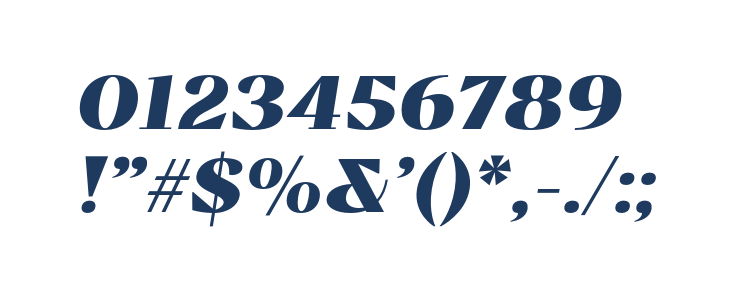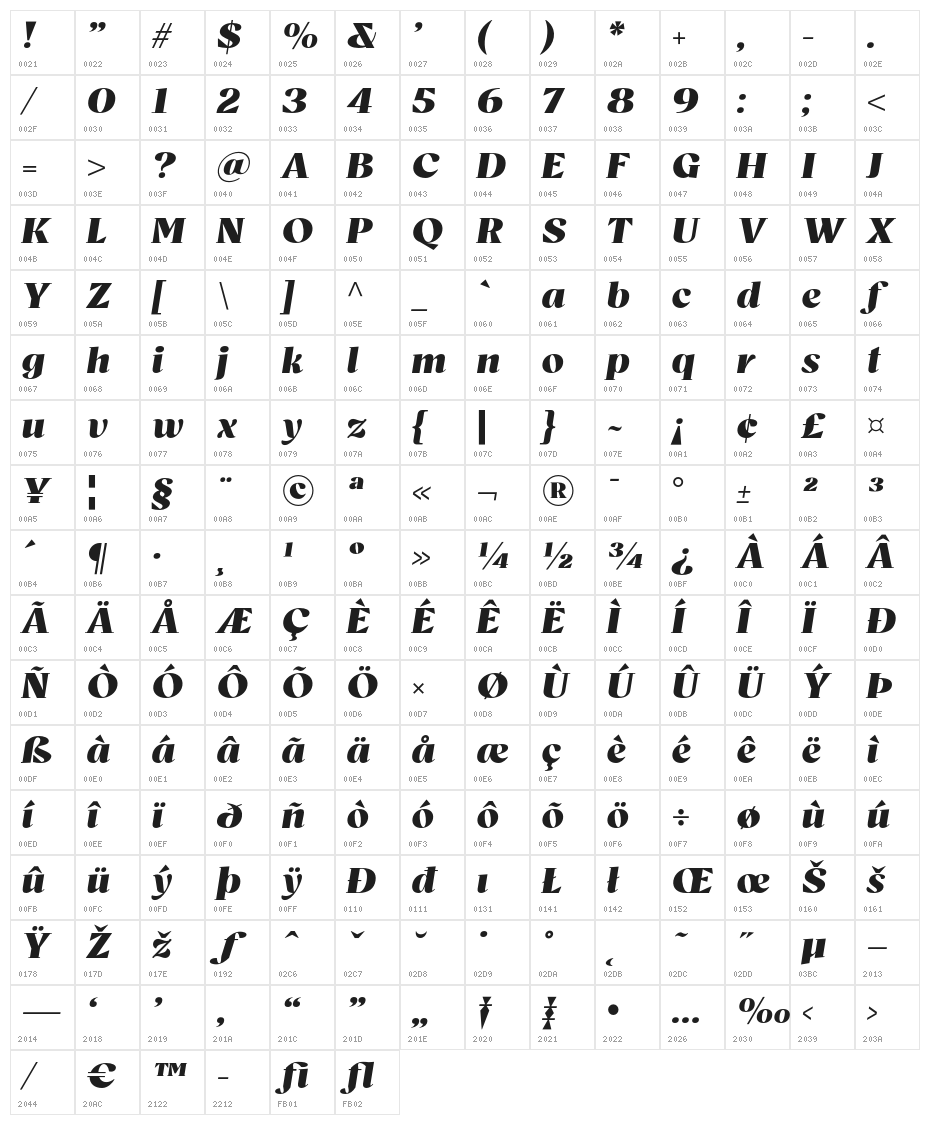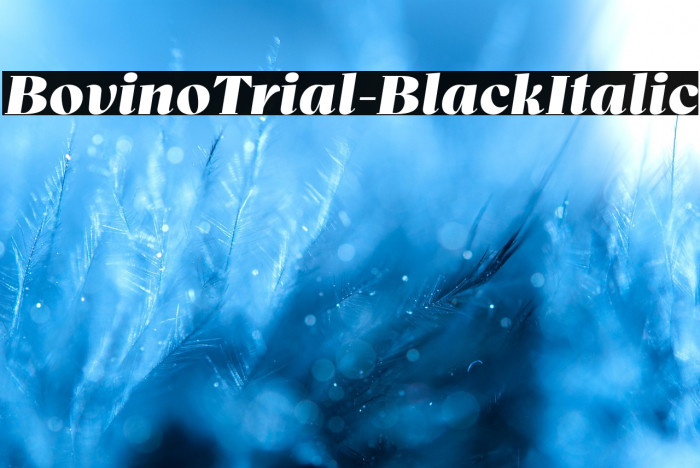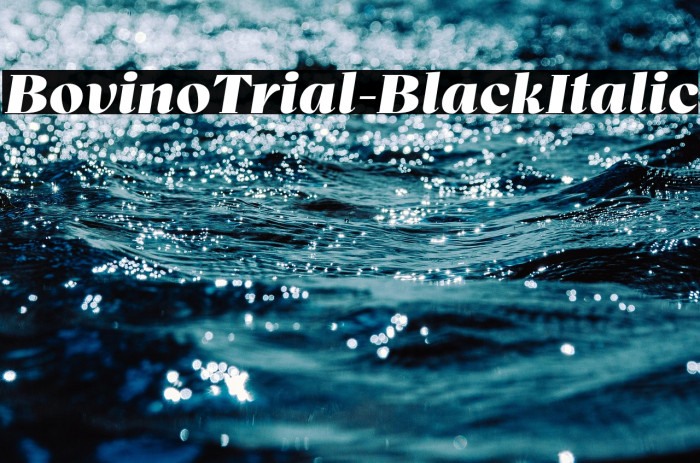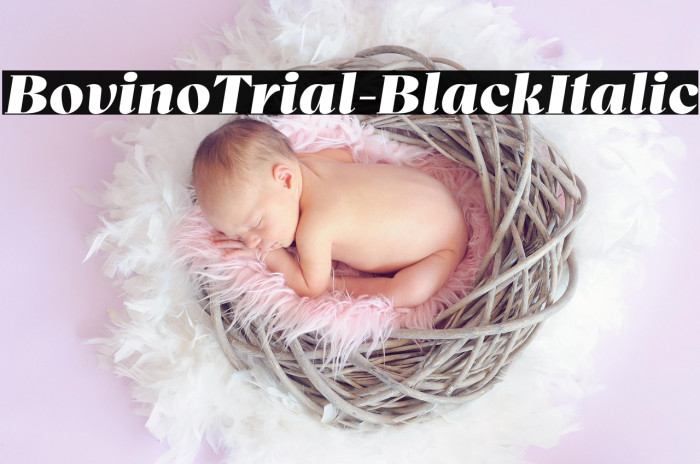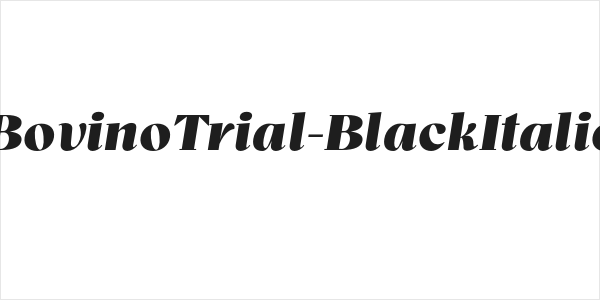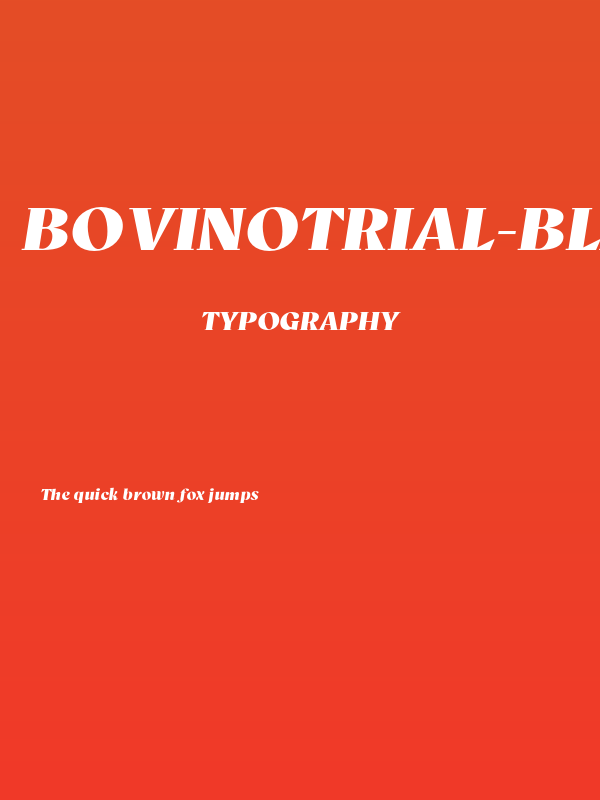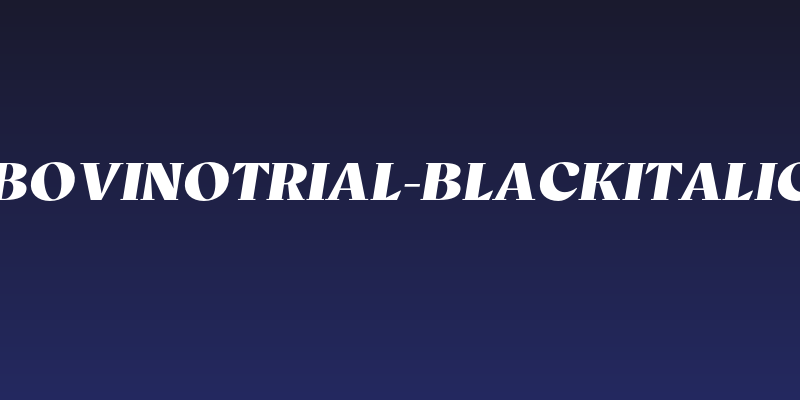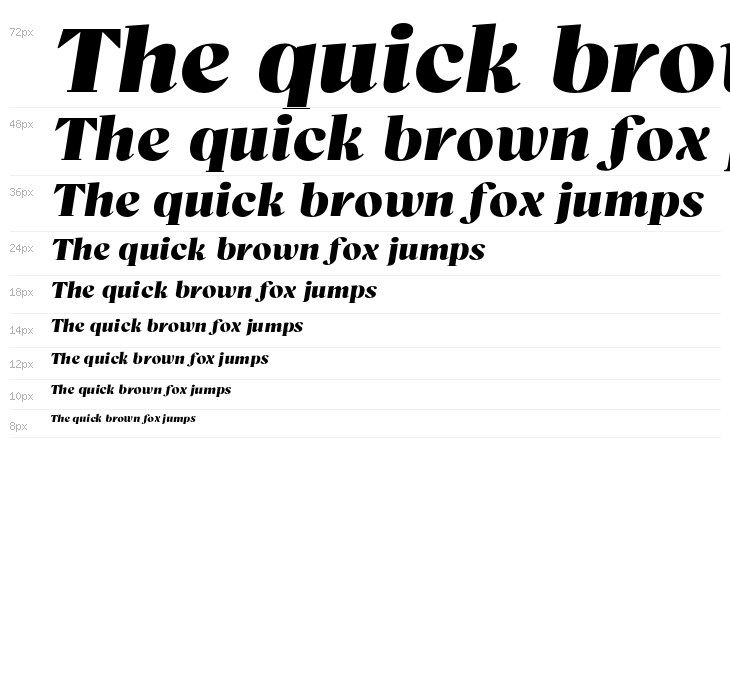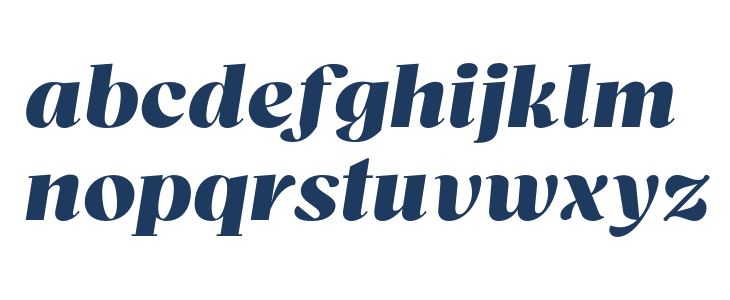
BovinoTrial-BlackItalic Font
BovinoTrial-BlackItalic Description
This font features a bold and italicized style, characterized by its strong and dynamic presence. The letters are thick and slightly slanted, giving a sense of movement and energy. The uppercase letters are robust and commanding, while the lowercase letters maintain a consistent weight and style. The numerals are equally bold, ensuring readability and impact. Special characters are designed with the same boldness, making them stand out effectively. This font is ideal for making a statement, with its high contrast and dramatic flair.